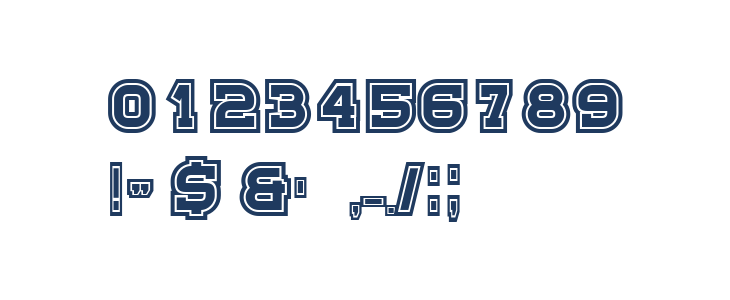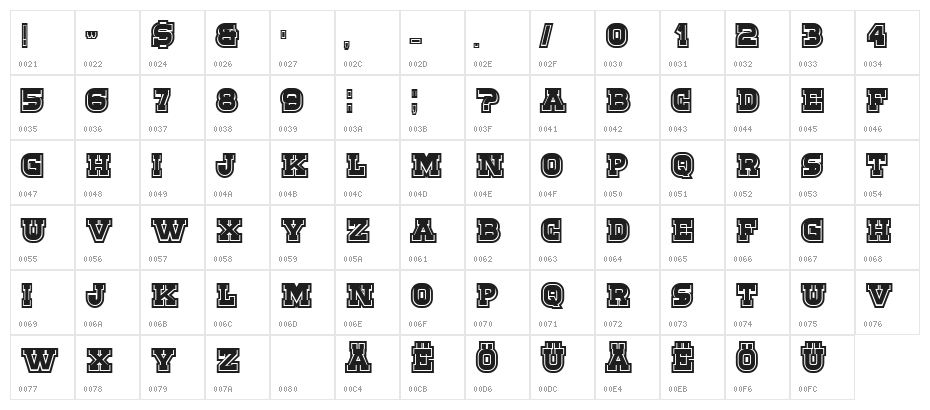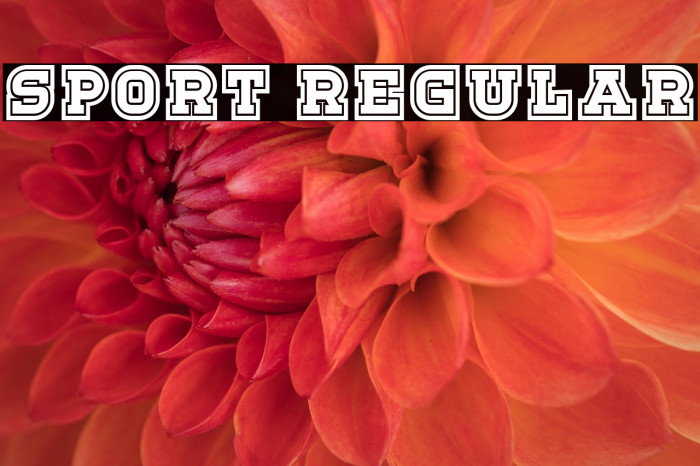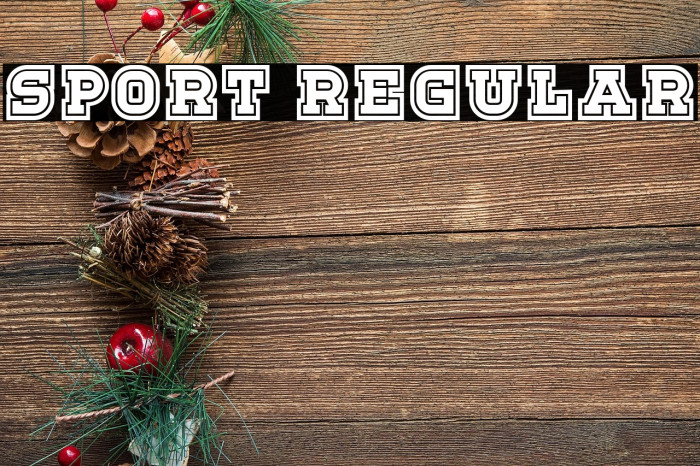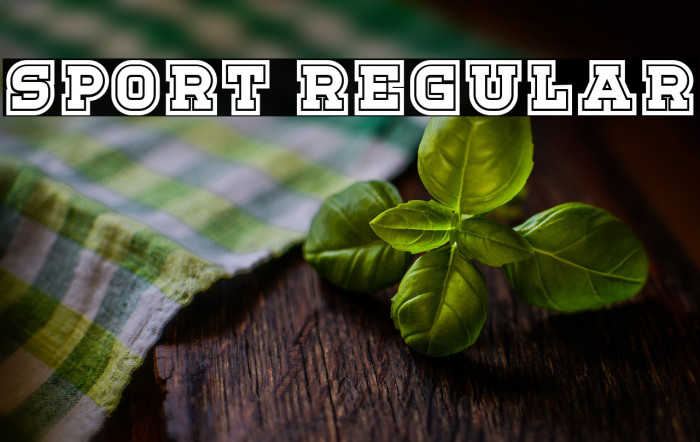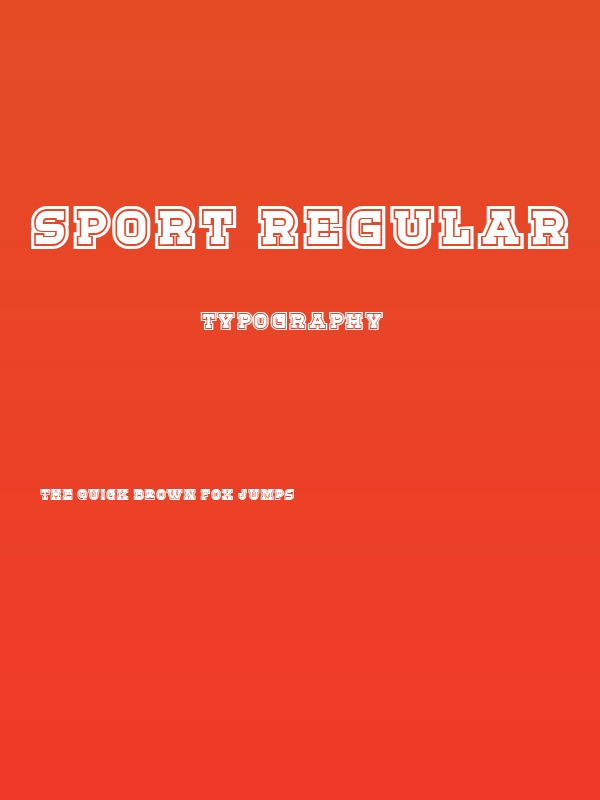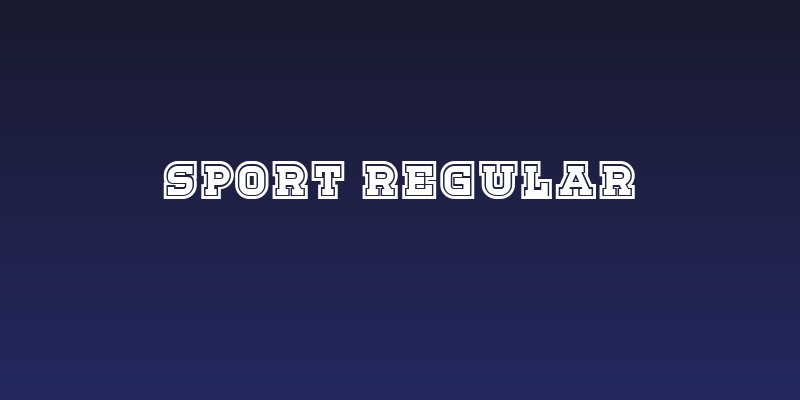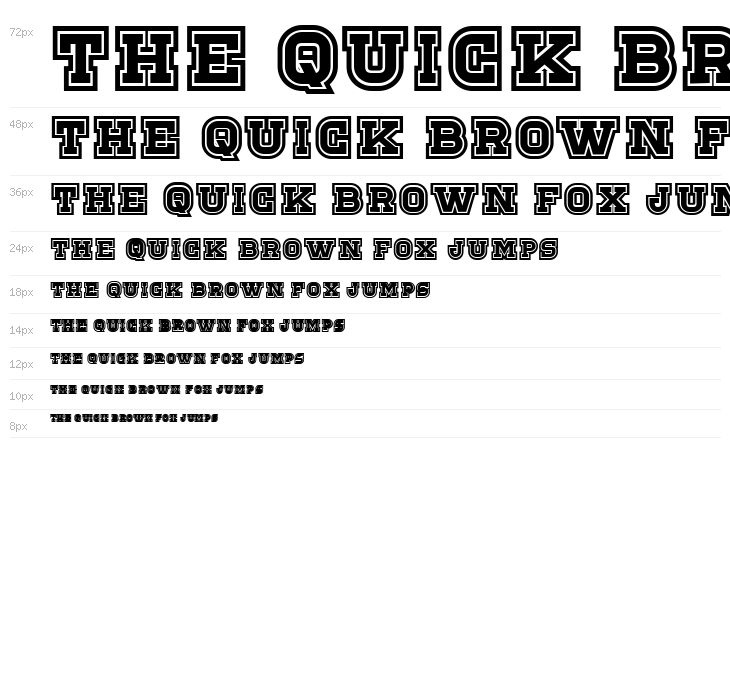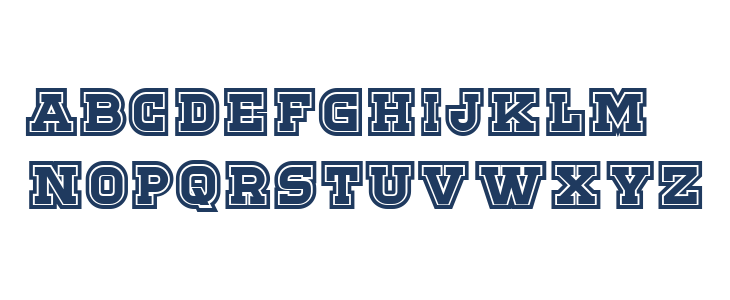
Sport Regular Font
Sport Regular Description
This font features a bold, athletic style with a strong presence, reminiscent of classic sports jerseys and varsity lettering. The characters are outlined with a thick border, adding depth and a three-dimensional effect. The uppercase letters are prominent and commanding, while the numerals and special characters maintain the same robust design. This font is ideal for projects that require a sporty, energetic feel, such as team logos, event posters, or merchandise branding. Its boldness ensures high visibility and impact, making it suitable for both digital and print media.
Overall StyleSporty, Energetic, Bold
Proposed ProjectsTeam logos, sports event posters, merchandise branding, digital banners.